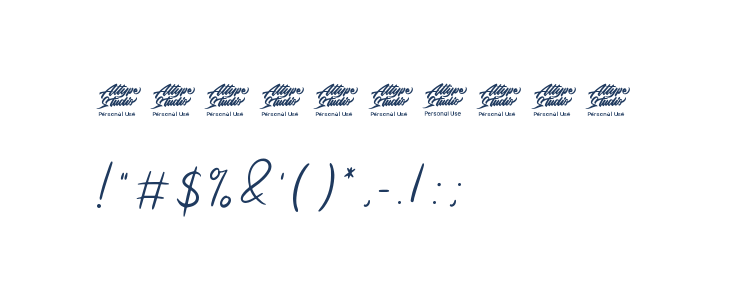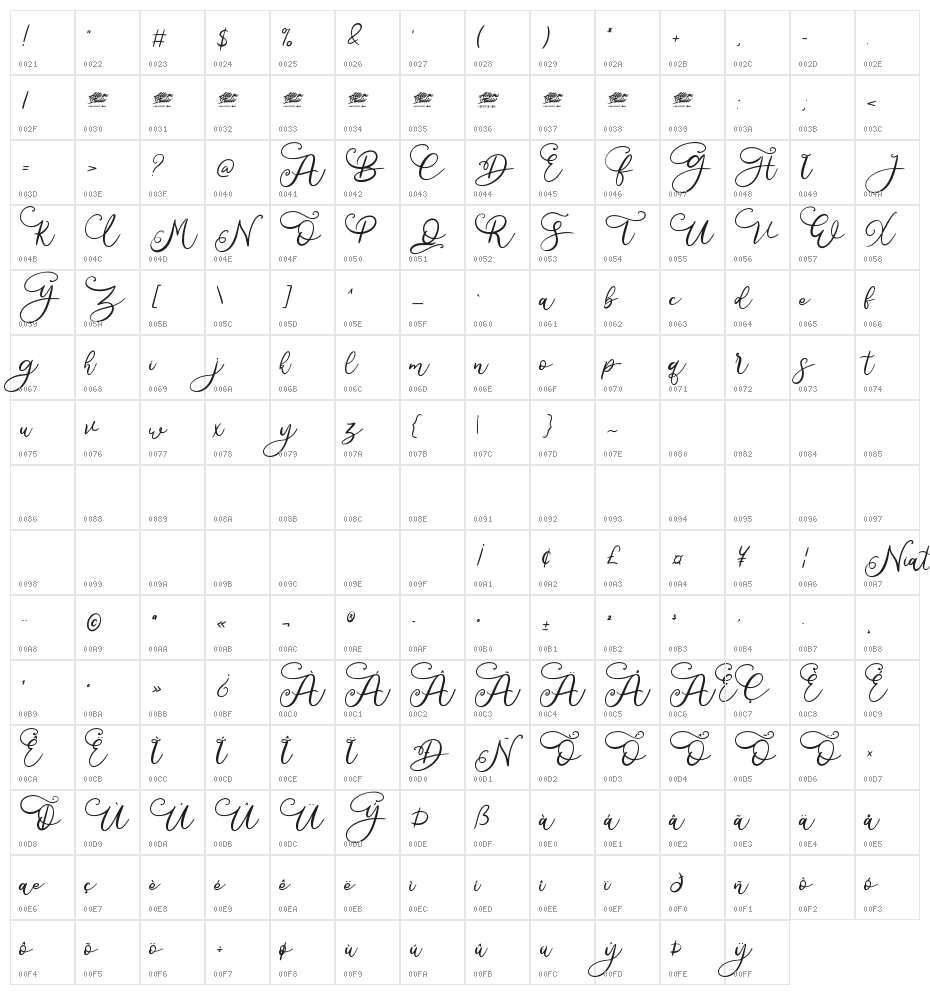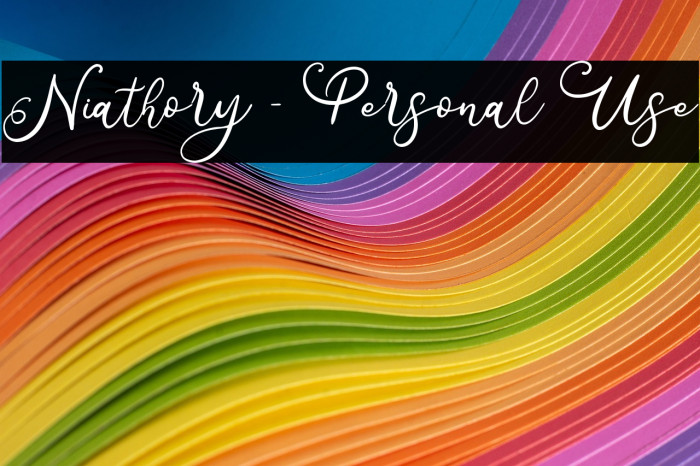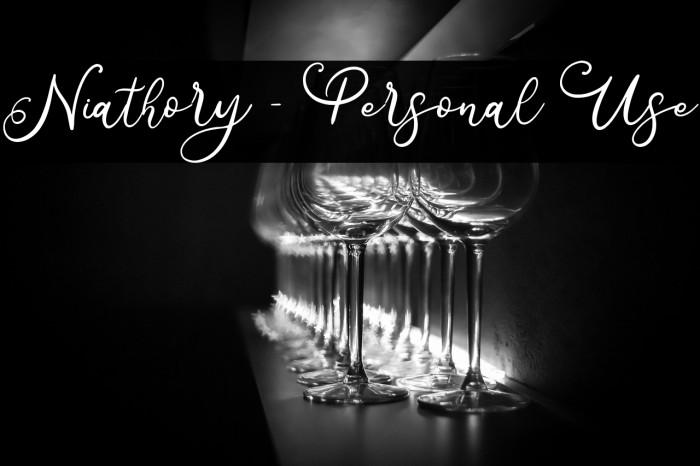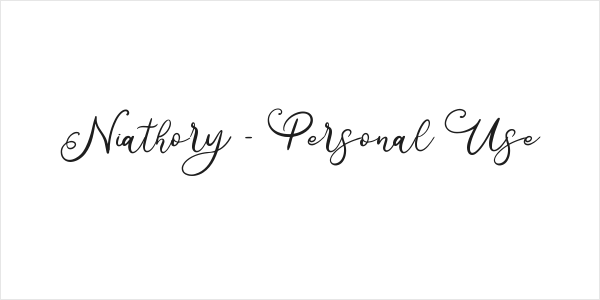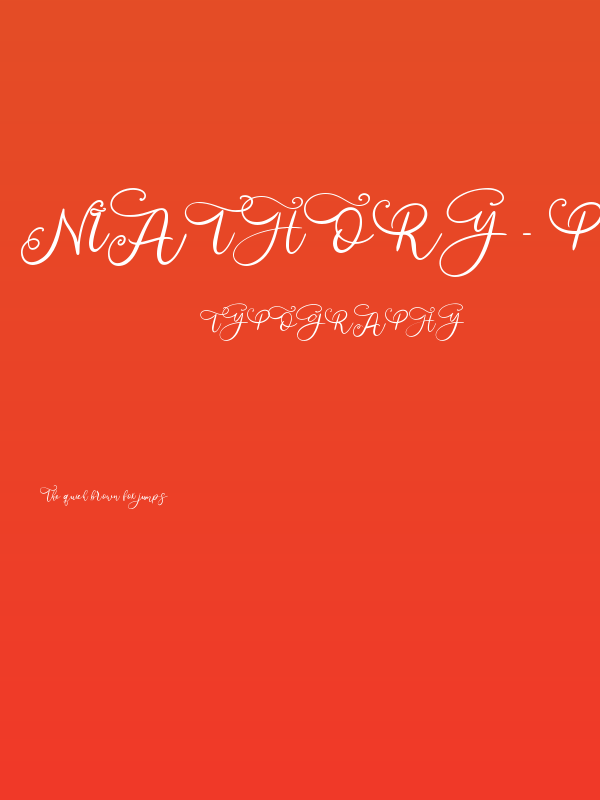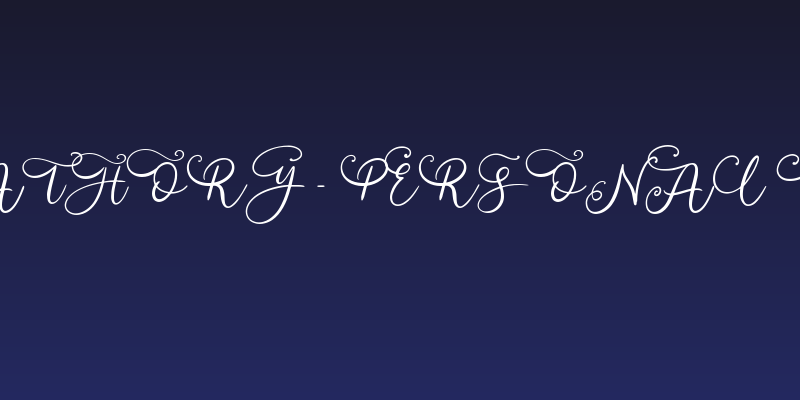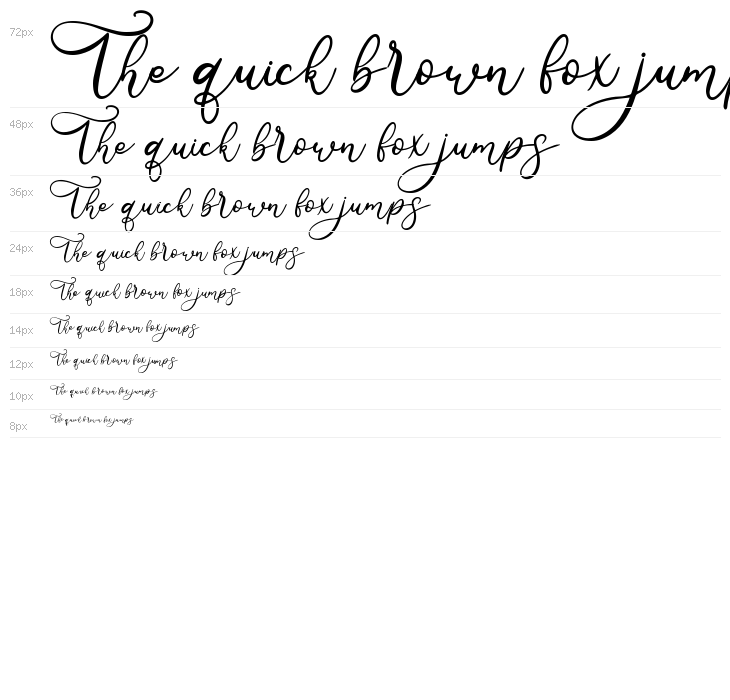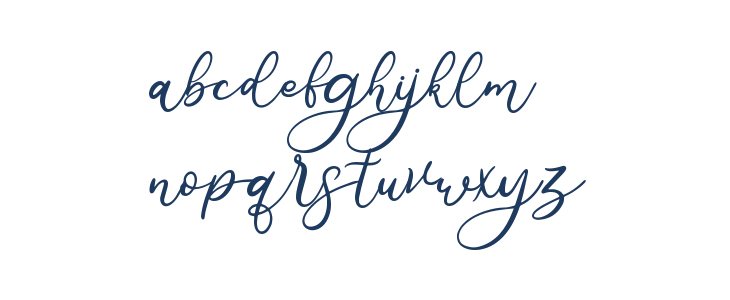
Niathory - Personal Use Font
Niathory - Personal Use Description
This font exudes elegance and sophistication with its flowing, cursive style. The uppercase letters are adorned with intricate swirls and loops, giving them a decorative flair that captures attention. The lowercase letters maintain a consistent fluidity, with some characters extending below the baseline, adding to the font's graceful appearance. The numerals and special characters are designed to complement the alphabet, featuring similar curves and embellishments. This font is perfect for projects that require a touch of class and refinement, such as wedding invitations, luxury branding, or high-end product packaging. Its artistic nature makes it ideal for creating visually appealing designs that stand out.
| Proposed Projects | Ideal for wedding invitations, luxury branding, and elegant product packaging. |